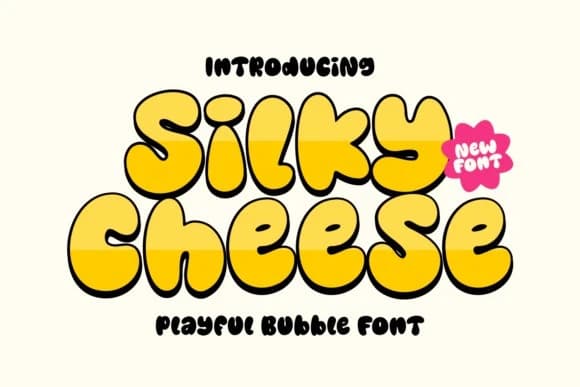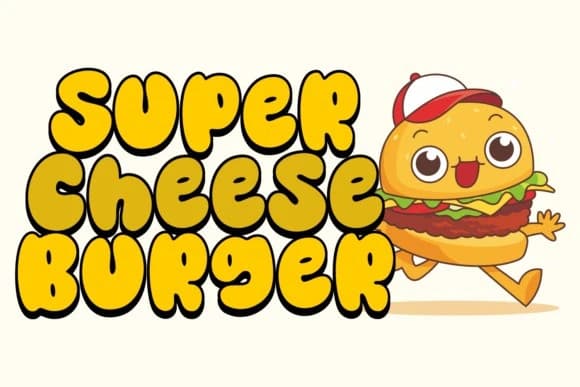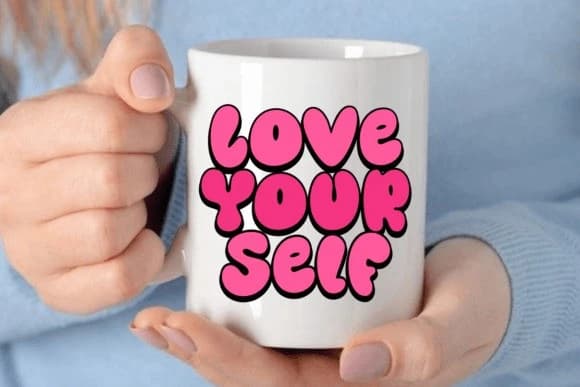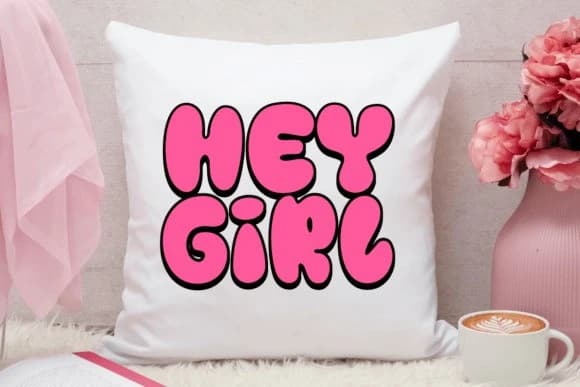
Silky Cheese Playful Font
Silky Cheese Playful Font is a cute and quirky display font. It will add an incredibly joyful touch to your designs. Add this beautiful display font to each of your creative ideas and notice how it makes them stand out!